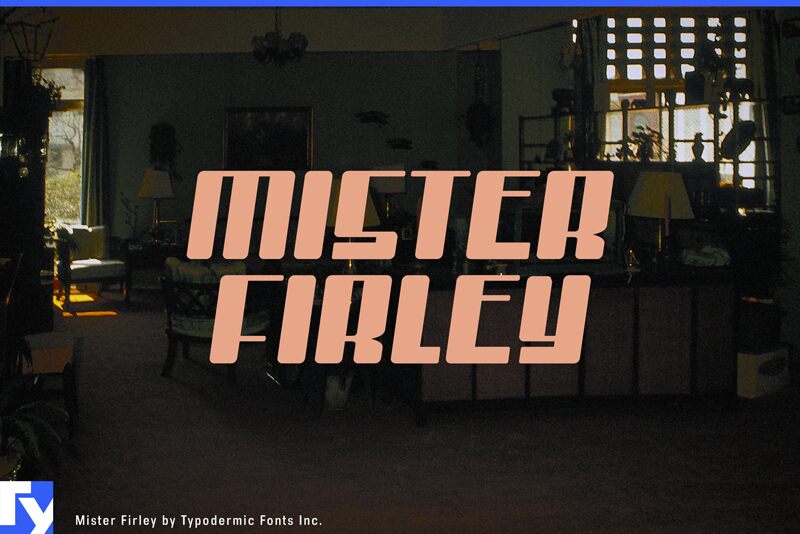
Mister Firley, designed by Ray Larabie, is a free retro techno display font with a compressed, forward-leaning build. Its broad strokes and narrow gaps create a dense, machine-cut silhouette. Rounded corners keep the sharp forms from feeling brittle.
Gaming brands can use its speed-driven profile as a compact identity, also suited to motorsport labels and electronic music events. In magazine design, it gives cover lines and feature openers the look of custom racing graphics rather than ordinary type.
Mister Firley